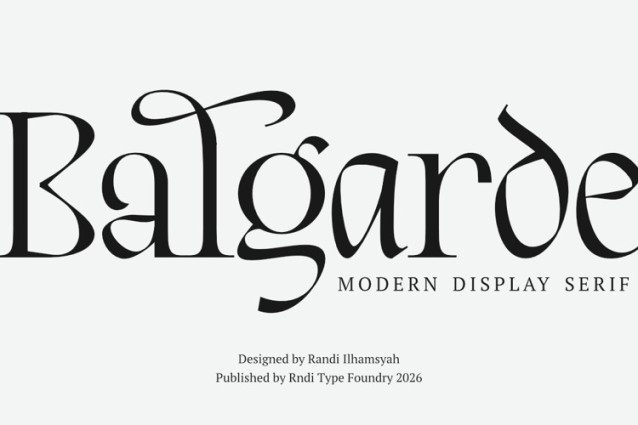
Balgarde Serif Font
Balgarde Serif Font is an elegant serif typeface that blends classical sophistication with modern artistic flair. Characterized by its graceful curves, high contrast strokes, and distinctive ornamental details, Balgarde evokes a sense of luxury and refinement. The font’s unique letterforms—especially its sweeping terminals and stylish ligatures—make it ideal for high-end branding, editorial design, fashion magazines, and premium packaging.
Designed to stand out while maintaining readability, Balgarde strikes a balance between decorative expression and functional typography. It works beautifully in headlines, logos, and display settings where personality and visual impact are essential. Whether used in print or digital media, Balgarde adds a timeless, artistic touch that elevates any design.